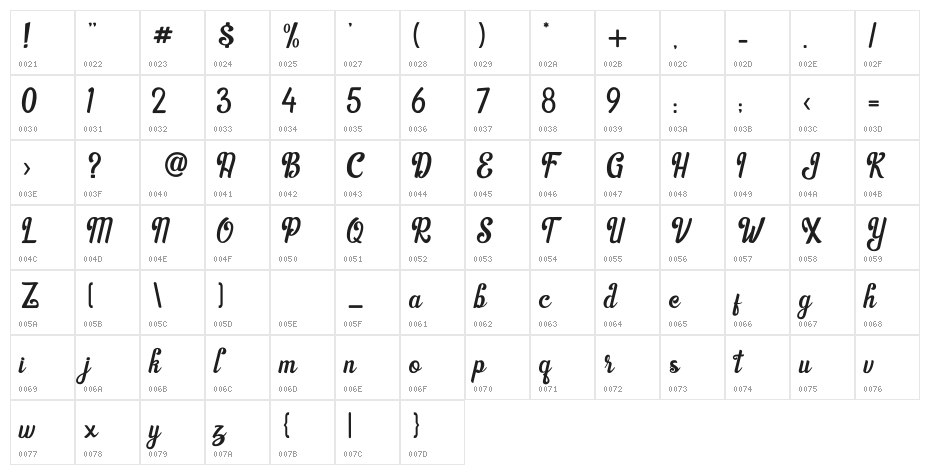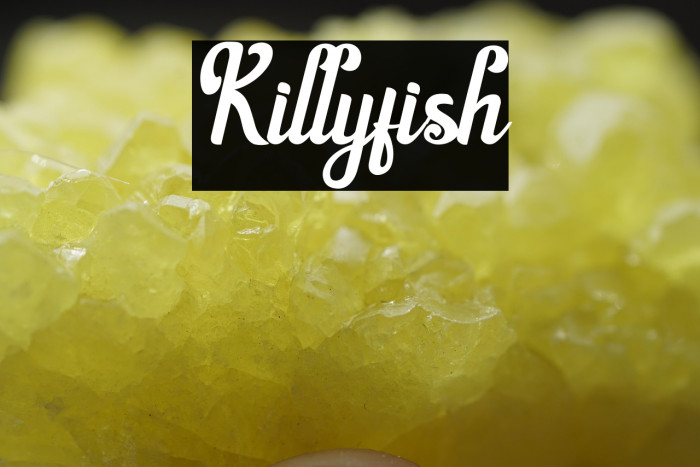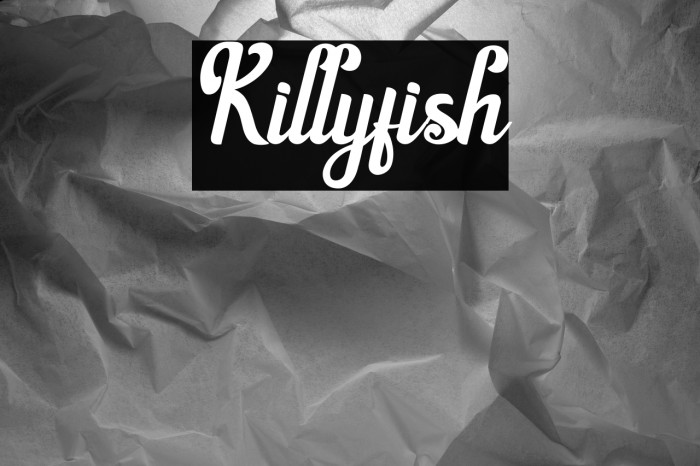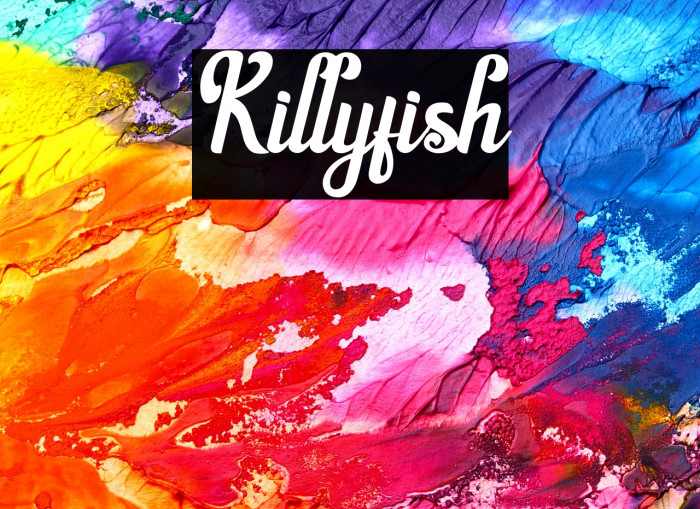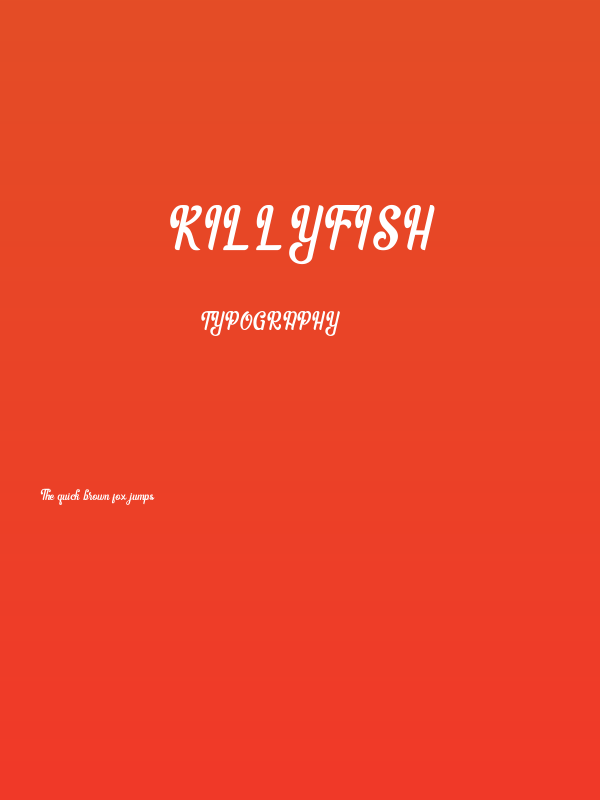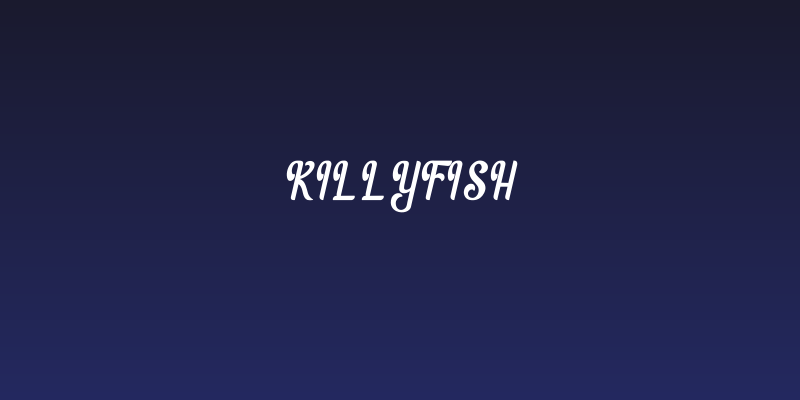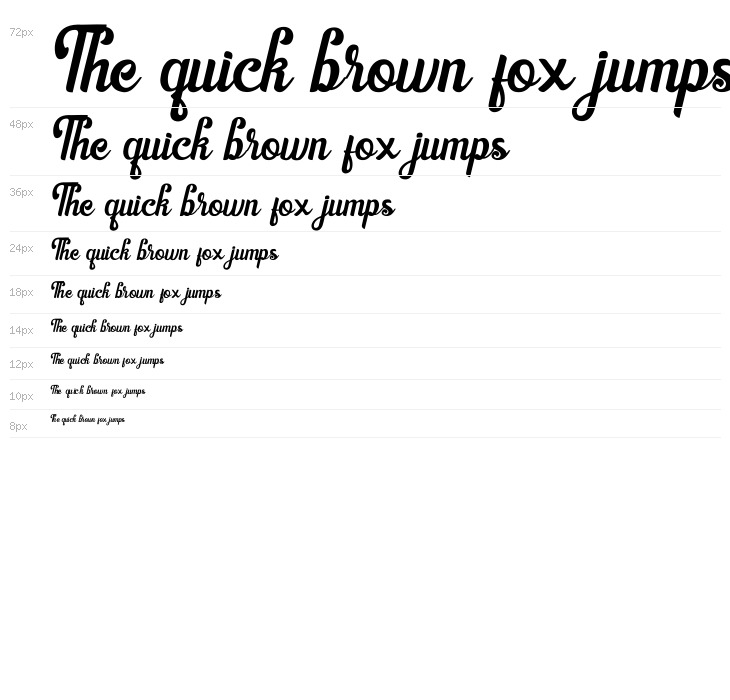
Killyfish Font
Killyfish Description
This font features a playful and dynamic script style, characterized by its flowing, cursive letterforms. The uppercase letters are bold and slightly slanted, giving a sense of movement and elegance. The lowercase letters maintain a consistent style, with smooth curves and connected strokes that enhance readability. The numerals are clear and distinct, matching the overall aesthetic of the font. Special characters are well-integrated, maintaining the font's cohesive look. This font is ideal for projects that require a touch of sophistication and flair.
| Use Case | Logos, Invitations, Branding |
| Proposed Projects | Ideal for wedding invitations, greeting cards, branding, and logo design. |